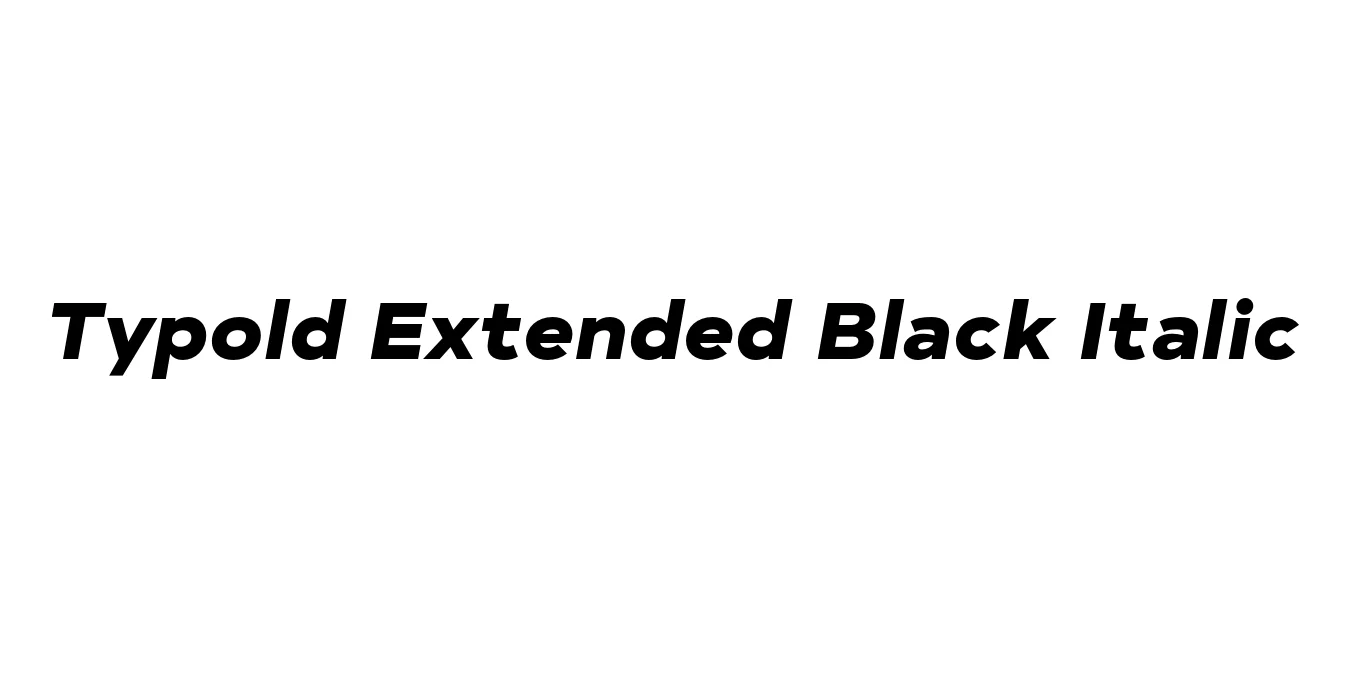
Typold Extended Black Italic
Designed by Jonathan Hill
Typold Extended Black Italic is a powerhouse of contemporary typography, part of the larger Typold family designed by Jonathan Hill for The Northern Block. This specific weight represents the pinnacle of the family's geometric evolution, featuring an ultra-wide stance and a dynamic slant that conveys speed, stability, and modern sophistication. It was meticulously crafted to ensure that even at its most extreme proportions, the typeface maintains exceptional balance and structural integrity across various digital and print media.
Historically, the Typold series was developed to bridge the gap between traditional geometric constructions and the demands of high-performance modern UI/UX design. The Extended Black Italic variant excels in high-impact scenarios where visual weight and horizontal emphasis are required. Its clean lines and mathematical precision make it a favorite for brands looking to establish a futuristic or architectural aesthetic while retaining the legibility associated with classic sans-serif forms.
Typold Extended Black Italic Best Uses
Ideal for high-impact logos and corporate identities requiring a bold, stable presence.
Perfect for large-scale outdoor media and headlines where visibility is paramount.
Often used in video game interfaces and cinematic title sequences for a high-tech feel.
Great for hero sections and call-to-action buttons that need to grab immediate attention.